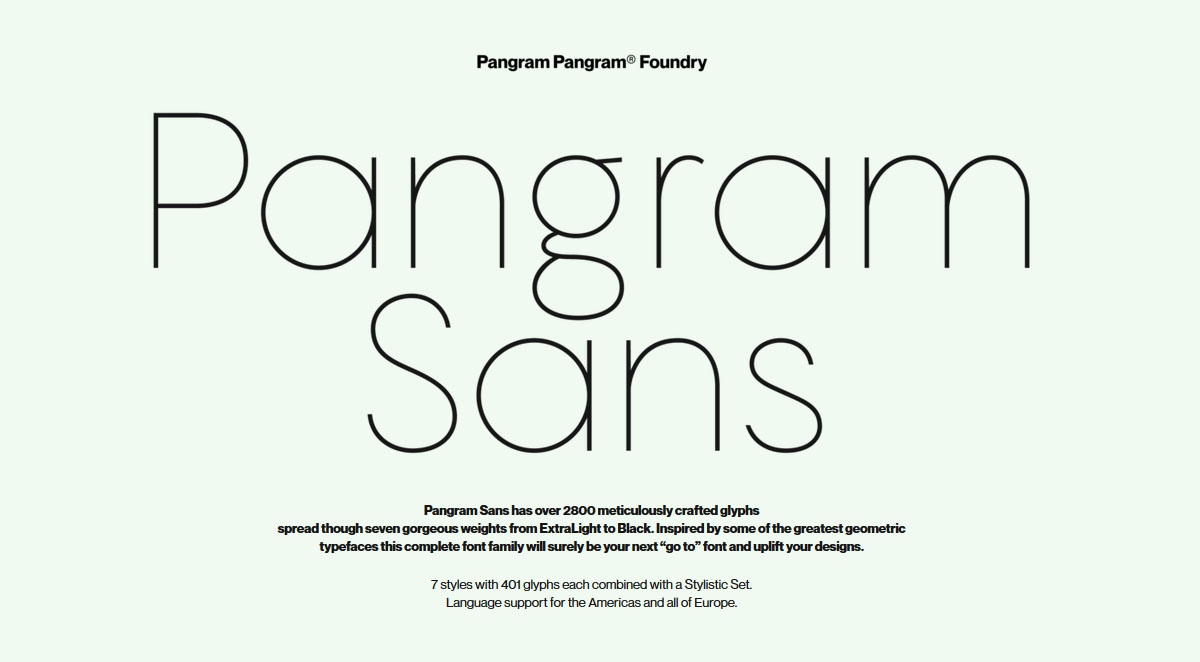
Pangram Sans Font
Pangram Sans Font is perfect for modern websites, corporate presentations, tech company branding, user interface design, mobile applications, digital marketing materials, startup identities, professional documentation, clean advertising campaigns, and contemporary business communications.
What makes Pangram Sans Font exciting is its universal versatility that embodies complete typographic functionality across all design applications. This comprehensive sans-serif typeface combines geometric precision with human warmth, creating letterforms that communicate clarity, reliability, and modern sophistication. The font's complete character coverage and contemporary appeal make it perfect for brands seeking a single, versatile typeface solution that performs excellently across all media platforms and international markets.
The Pangram Sans Font family includes Ultra Light, Light, Regular, Medium, Semi-Bold, Bold, Extra Bold, and Black variants. Each weight maintains the font's universal character while providing comprehensive typographic flexibility for complete brand identity systems and diverse design applications across all modern communication platforms.
Whether you're developing global brand identities, creating international marketing materials, designing multilingual websites, or building comprehensive communication systems, Pangram Sans Font delivers unmatched versatility and universal appeal. Its complete character makes it perfect for multinational corporations, technology companies, international organizations, and global brands seeking authentic universal representation.
The font's geometric foundation and optimized spacing ensure exceptional performance across all languages and writing systems while maintaining its distinctive modern character. Each letterform has been carefully engineered to provide complete language support, perfect legibility, and consistent visual harmony across diverse cultural contexts and international applications.
This comprehensive typeface excels in global brand environments, offering designers the completeness needed for total brand communication strategies. The extensive character set includes international alternates, multilingual ligatures, and universal symbols for complete global market positioning and comprehensive brand storytelling.
Establish your universal presence with typography that speaks every language and connects all cultures seamlessly.